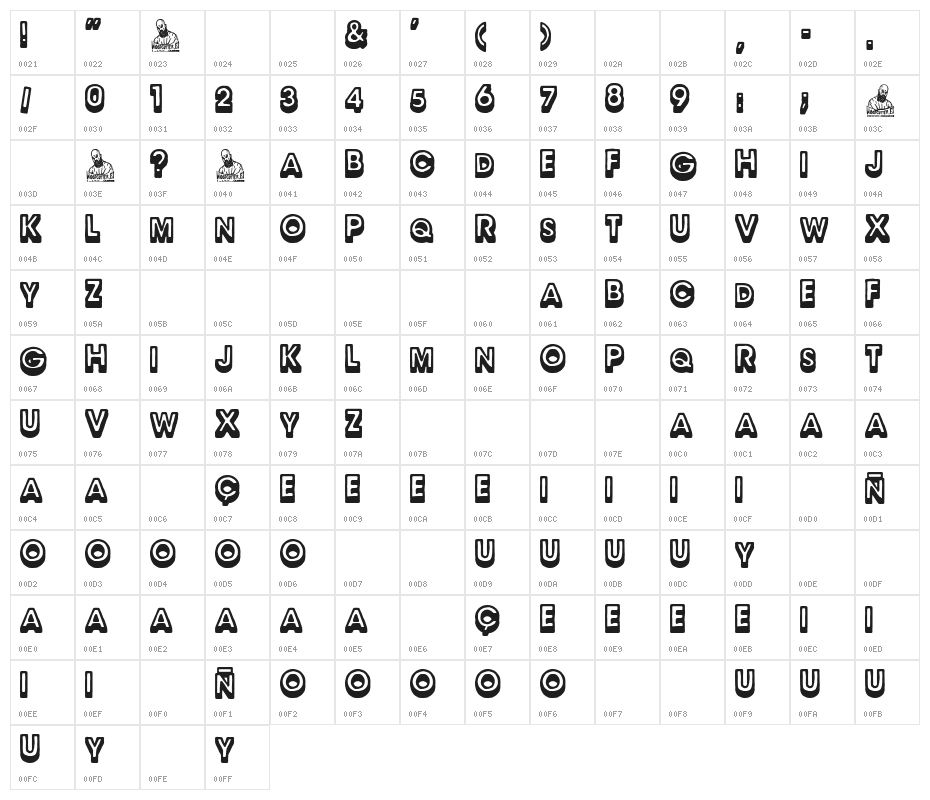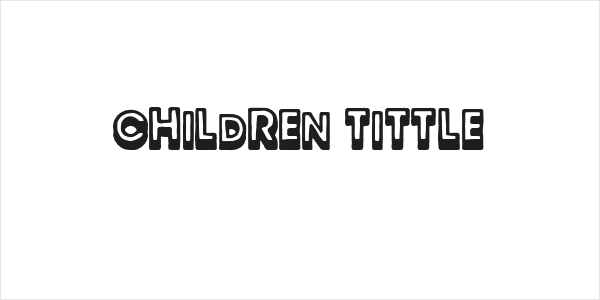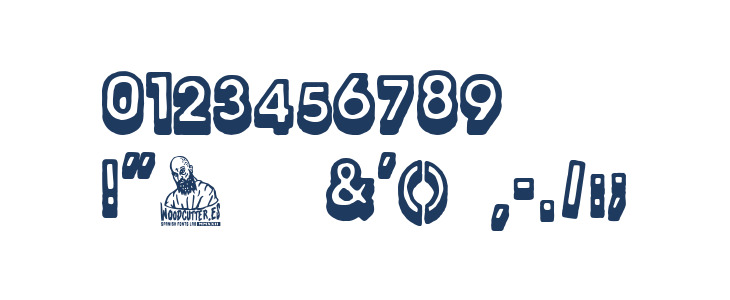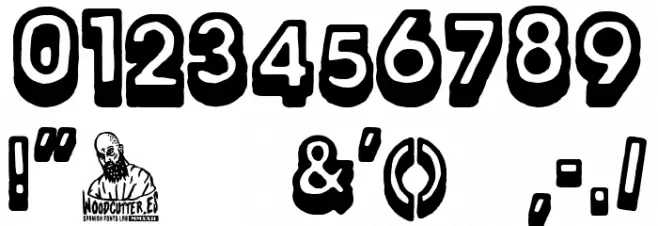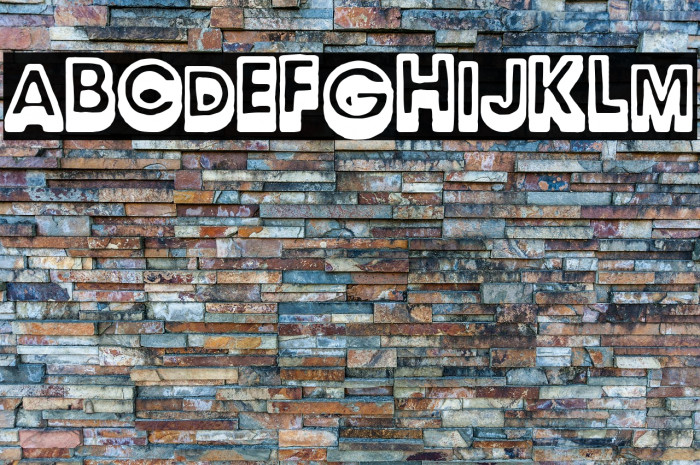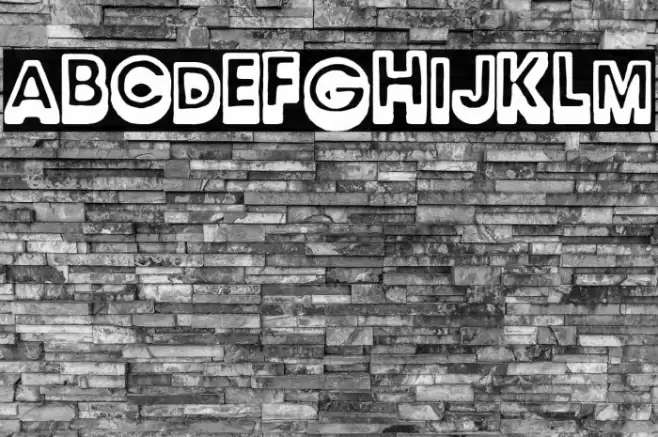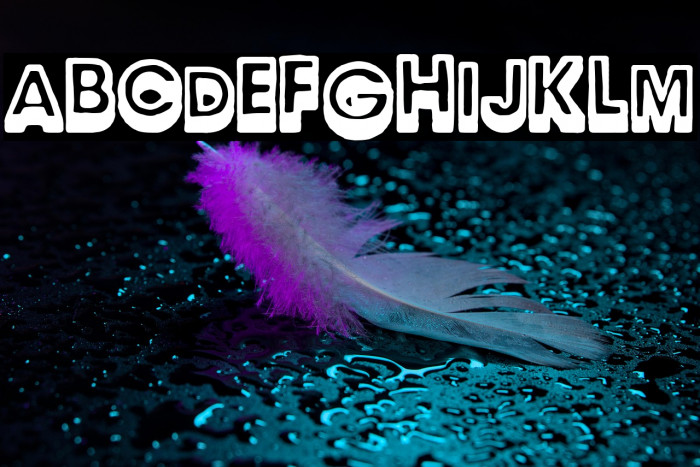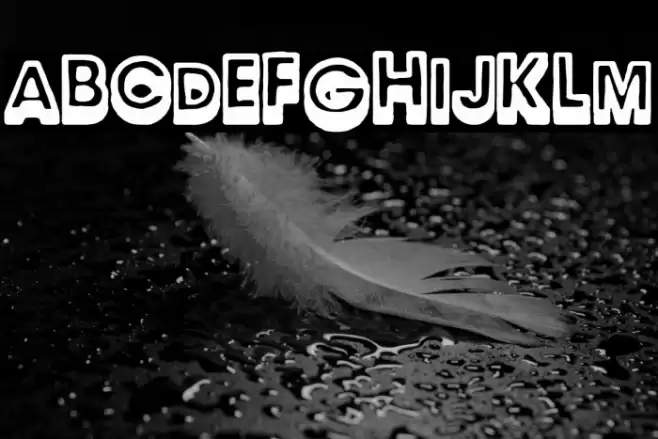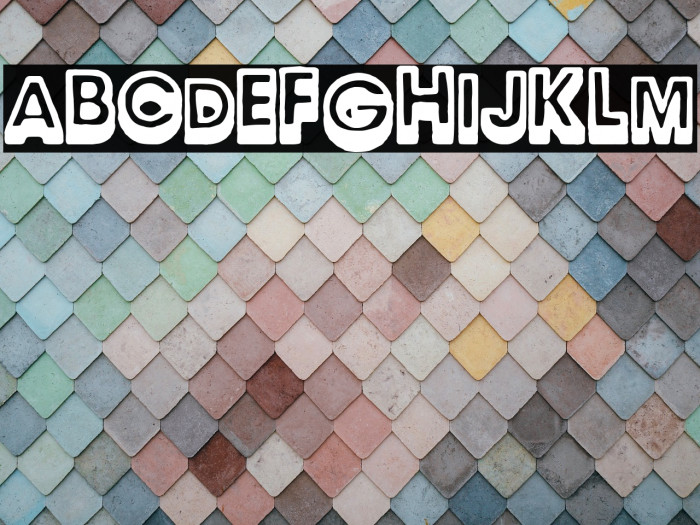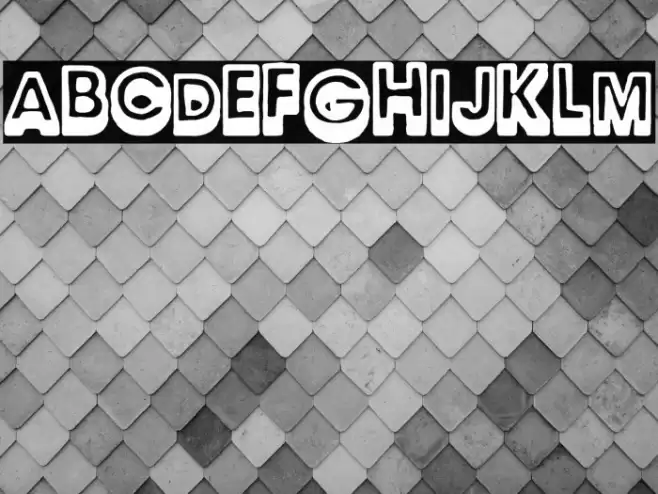
Children Tittle Font
Children Tittle Description
This playful and bold font features a thick, rounded design with a three-dimensional shadow effect, giving it a cartoonish and lively appearance. The uppercase and lowercase letters maintain a consistent style, with the lowercase slightly smaller but equally bold. Numbers and special characters follow the same design principles, ensuring uniformity across all characters. The font's thick strokes and shadowing make it stand out, ideal for capturing attention in creative projects. Its whimsical style is perfect for children's materials, playful branding, or any design that requires a fun and engaging look.
| Overall Style | Playful, Cartoonish |
| Proposed Projects | Ideal for children's books, playful branding, posters, and educational materials. |